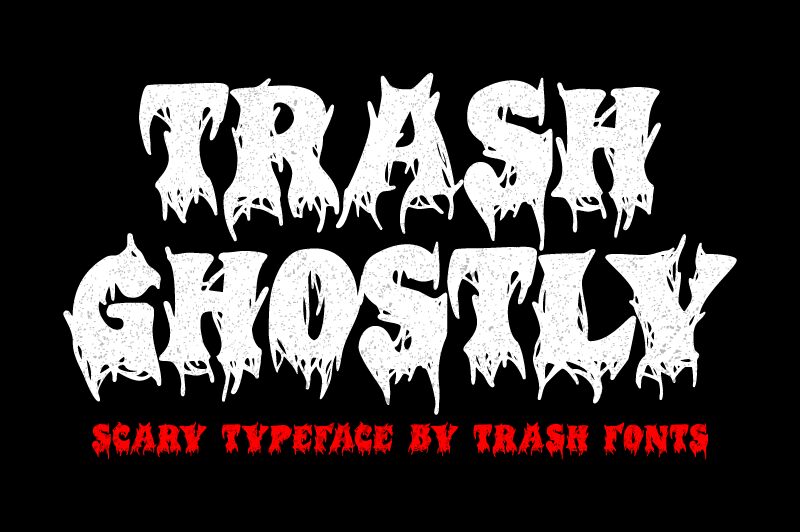
Trash Ghostly font is a free horror font by Trash Fonts. The spooky typography letters of this display typeface are inspired by ghosts, monsters, and other classic horror-movie protagonists. When you do not know how to achieve that eerie atmosphere with graphic design, this font is your answer. The letters are bumpy and jagged, just like you would expect from a typeface dedicated to horror. Is it grotesque? Is it thrilling? Yes. Just give it a try.
Use this font in all of your horror projects, from events or Halloween promotions to digital designs. An amazing option for movie title designs, typography book covers, t-shirt prints, different merchandise and stationary items, and more. This is a guaranteed attention-grabber for each and every viewer.